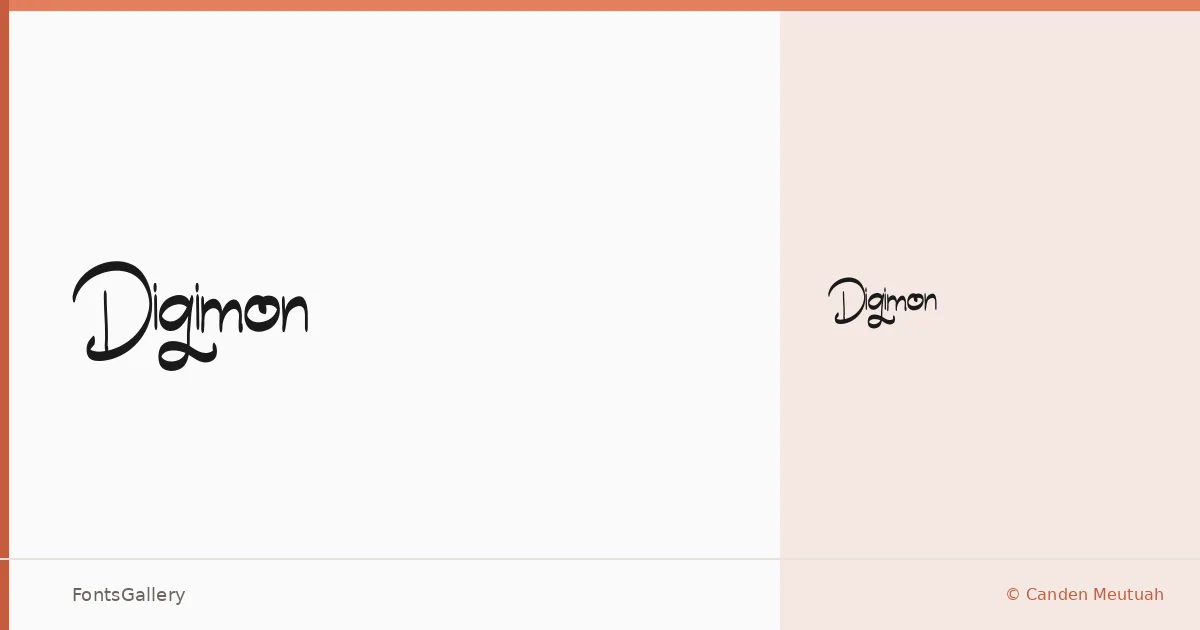
About Digimon Font
There is a looseness and energy to these letterforms that reads immediately as hand-drawn — strokes that lean into each other with a confidence that feels sketched rather than constructed. Canden Meutuah released this single-weight handwritten face in 2022, and the result is something that lands squarely between bold personality and playful spontaneity.
This is a handwritten display face in a single Regular cut, delivered as a TTF. The mood is bold and whimsical — the kind of lettering that draws the eye without apologizing for the attention. It does not try to mimic calligraphy or brush lettering in a classical sense; instead it carries the informal weight of a confident marker, making it well-suited to headlines and graphic treatments where character matters more than neutrality.
The face works best where a strong graphic voice is needed: branding marks, poster headlines, logo treatments, and T-shirt graphics are all natural homes. When you need to balance its informality with something more structured, it pairs with the clean authority of Helvetica, the editorial warmth of Canela, the refinement of Adobe Caslon Pro, the geometric clarity of ABC Arizona, or the character of Etna.